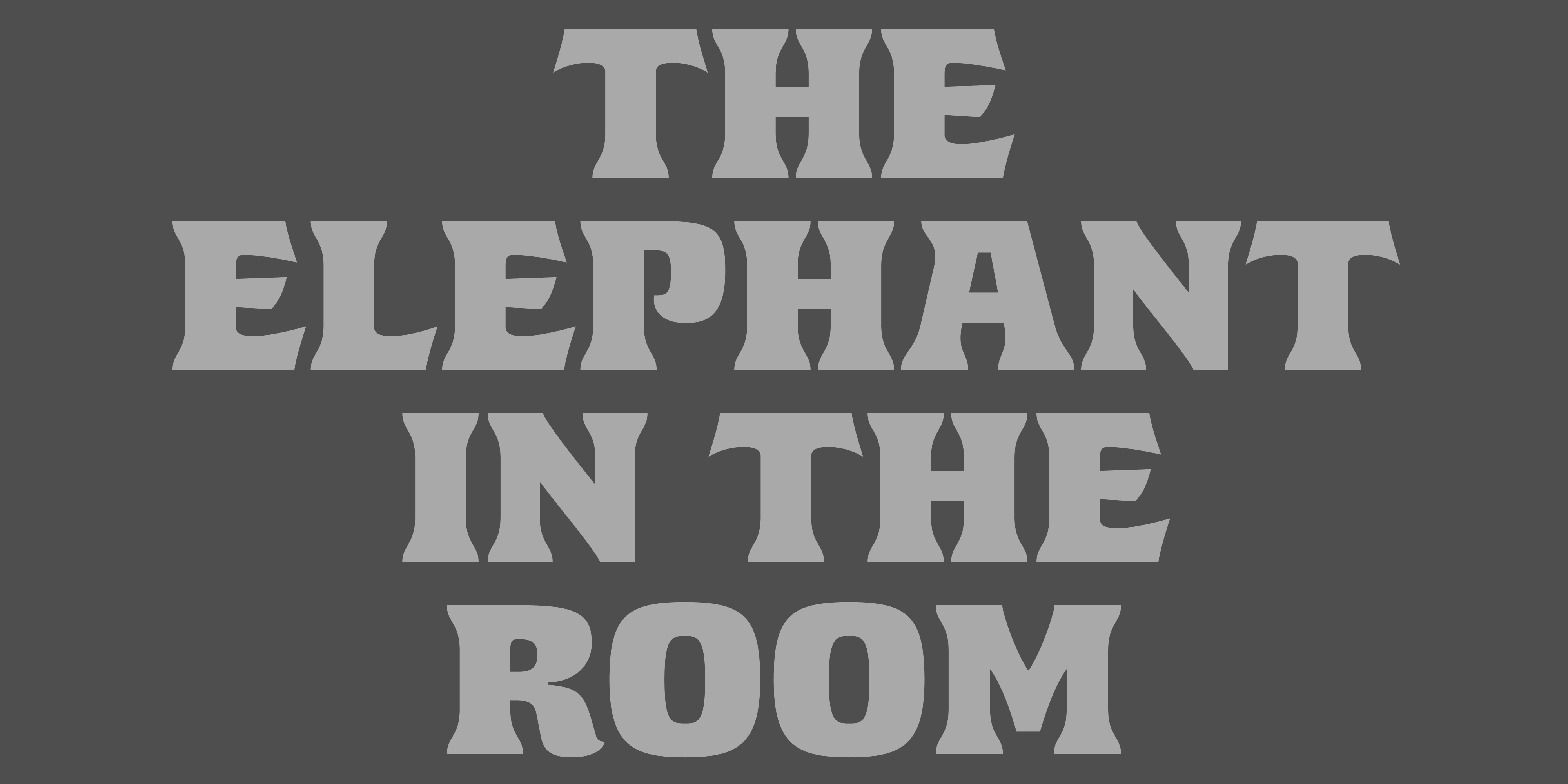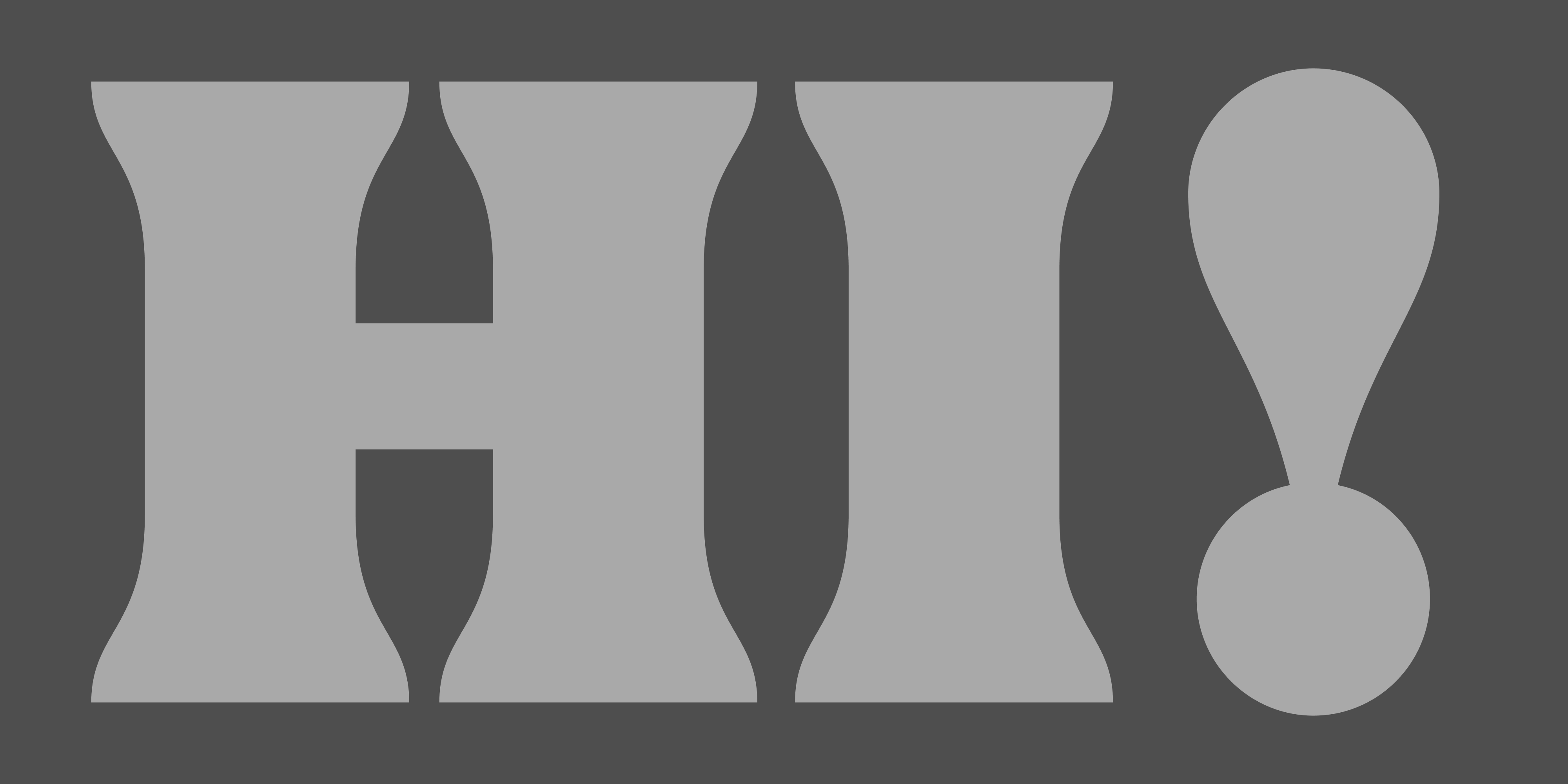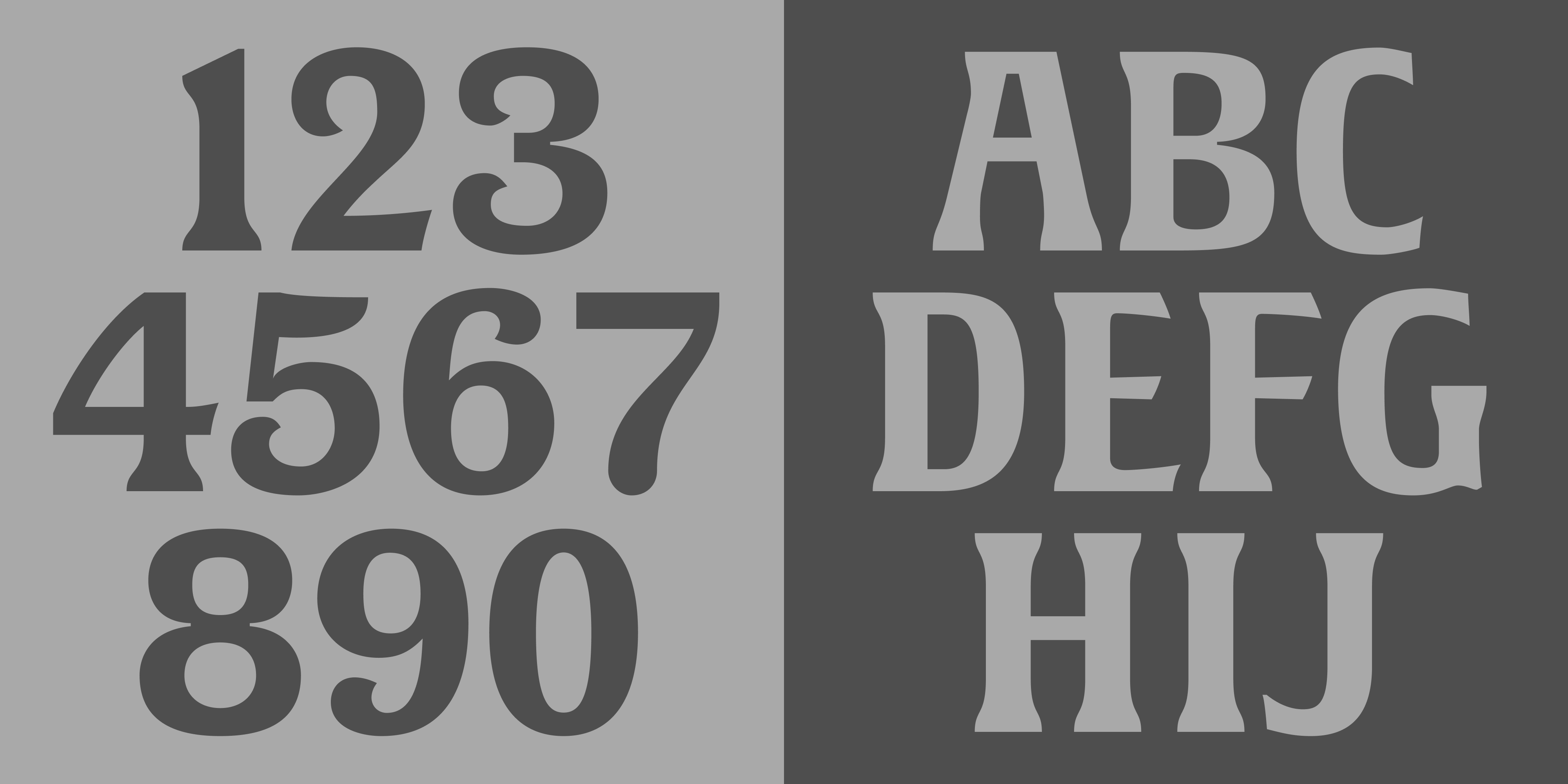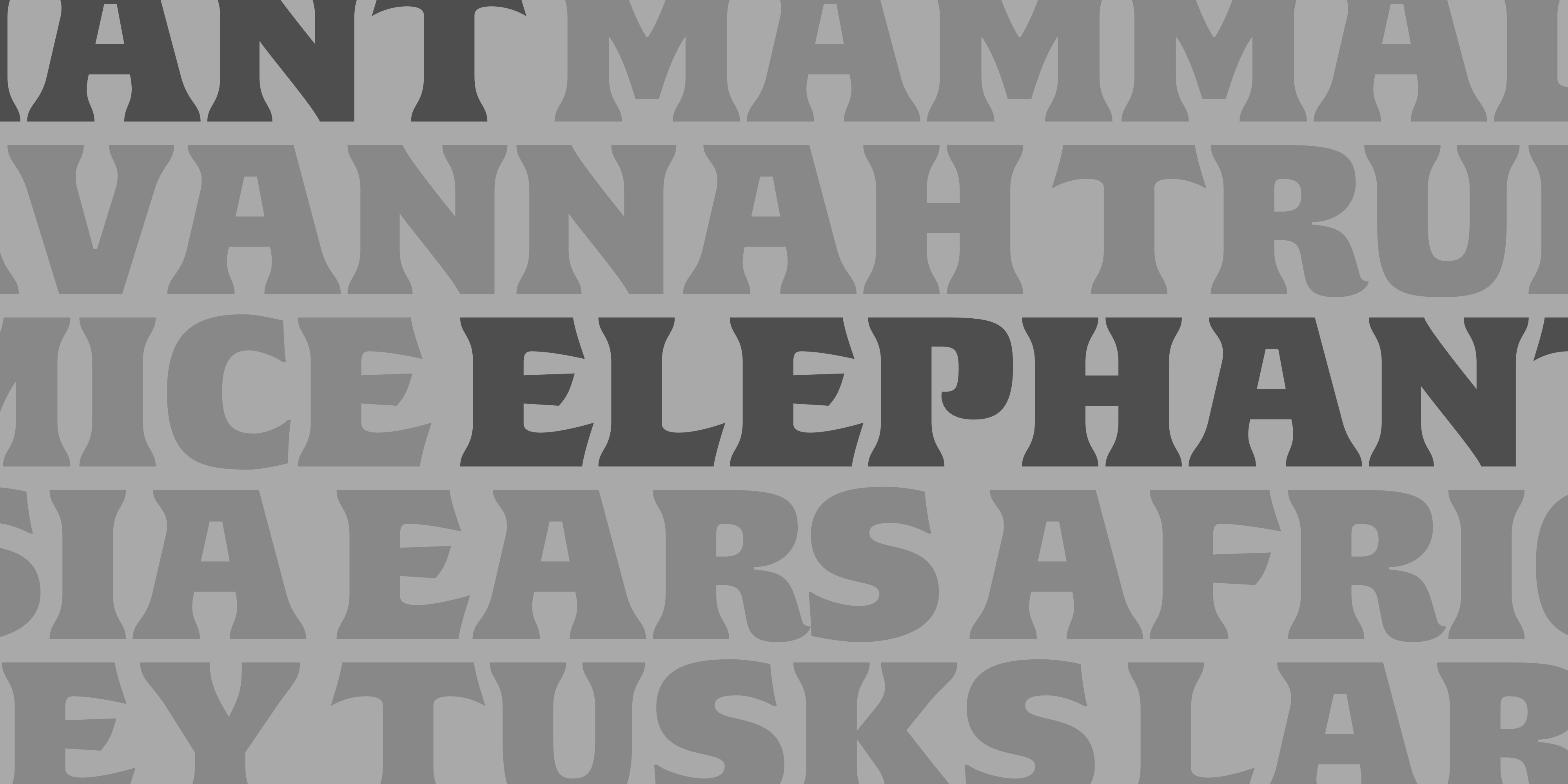
Elephant is a decorative typeface that comes in two weights. Born out of an organic project for danish brewery Carlsberg, the family takes literal inspiration from its namesake's feet. Seen in the serif endings it remains highly legible while still maintaining enough character to operate as a display font.